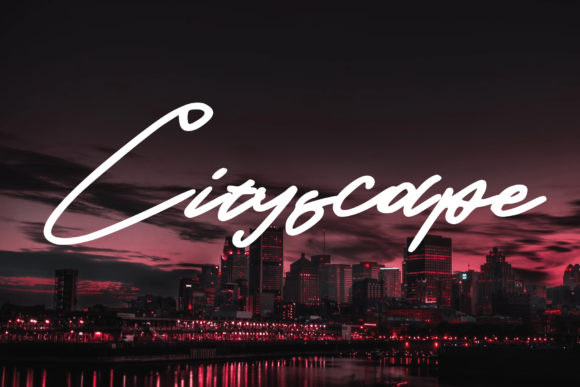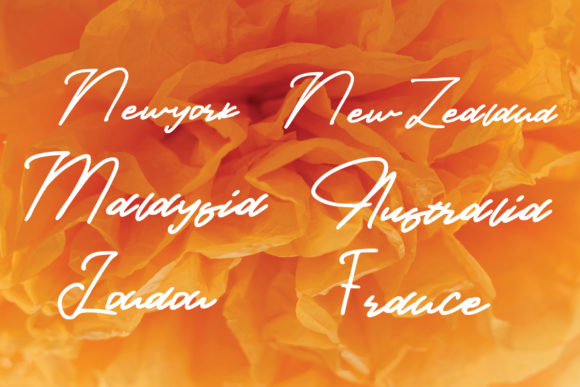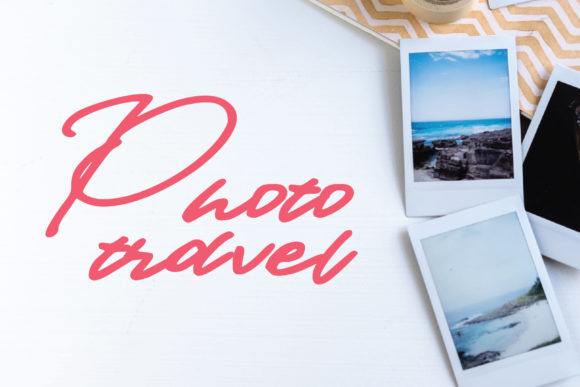
Introduction to Provincia Font
Provincia is a flowing handwritten font, described by an elegant touch, perfect for your favorite projects.
Key Features of Provincia Font
Why Choose Provincia Font?
Provincia Font offers exceptional quality and versatility, making it a valuable addition to your design toolkit. Whether you’re creating for personal projects or commercial use, Provincia Font delivers professional results.